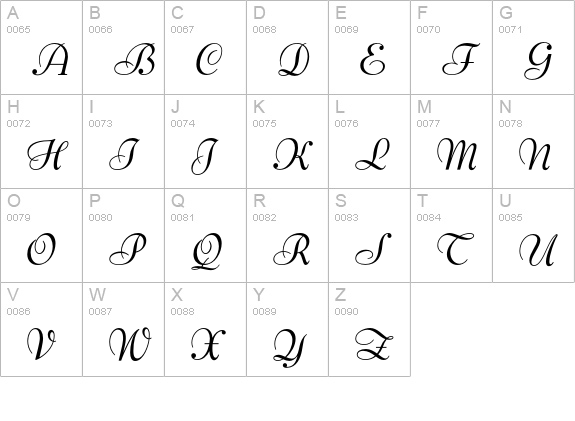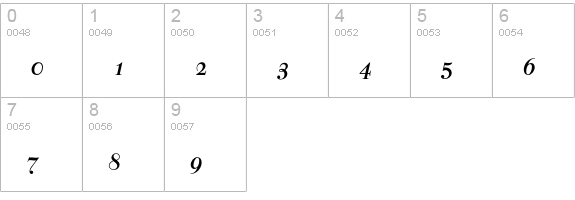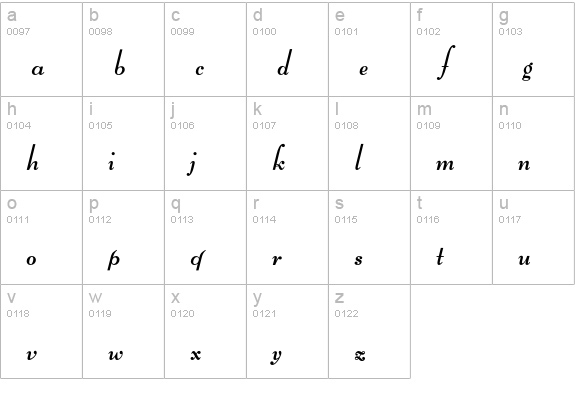
OPTIBernhard-BoldCursive Font Details
OPTIBernhard-BoldCursive font is a striking and elegant typeface that combines classic elements with a modern touch. Its bold cursive style exudes sophistication and charm, making it perfect for adding a touch of luxury to any design project. The flowing curves and strong strokes of this font create a sense of movement and fluidity, adding a dynamic and energetic feel to your text. What sets OPTIBernhard-BoldCursive font apart is not only its timeless design, but also the fact that it is available for free download at FontsMarket.com. This means that you can easily access this premium font without any cost, making it a valuable addition to your font collection. Whether you're working on branding materials, invitations, posters, or any other creative project, OPTIBernhard-BoldCursive font is sure to make a bold statement and leave a lasting impression. Don't miss the opportunity to enhance your designs with the elegance and style of OPTIBernhard-BoldCursive font. Download it for free today and elevate your typography game to new heights.